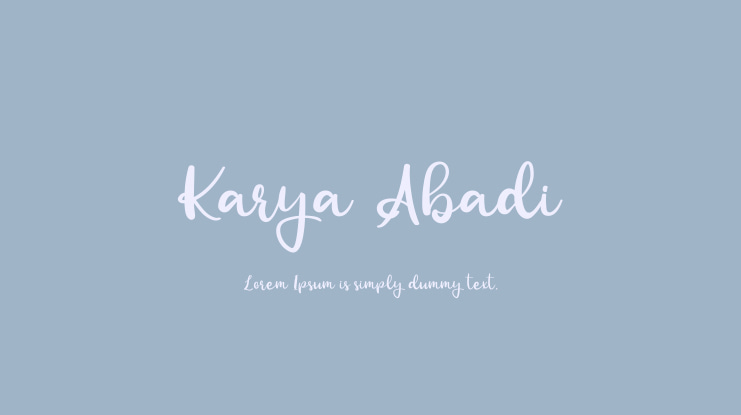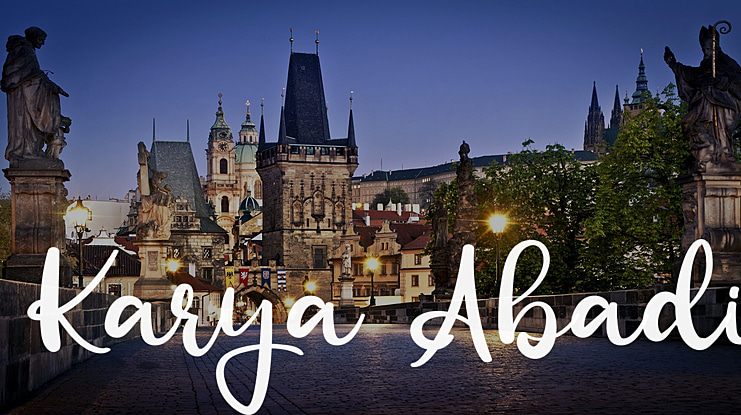
Karya Abadi Font Family
Agni Ardi Rein Prasetyo
Karya Abadi is gergeous font that we made special for seasonal event such christmas, fall, and valentine. Karya Abadi mean Lifetime Creation, so we hope this font always suitable in everything you need: wedding invitation, bussiness card, halloween event, christmast card.